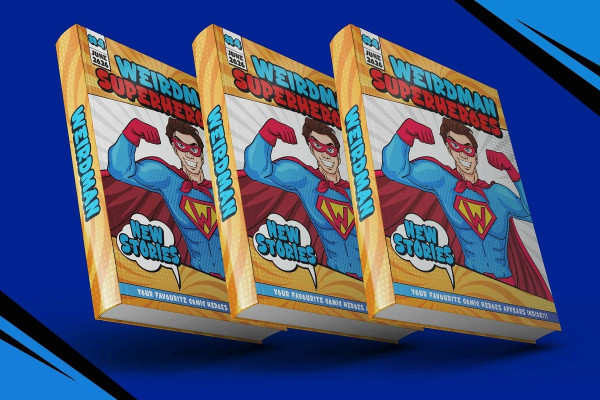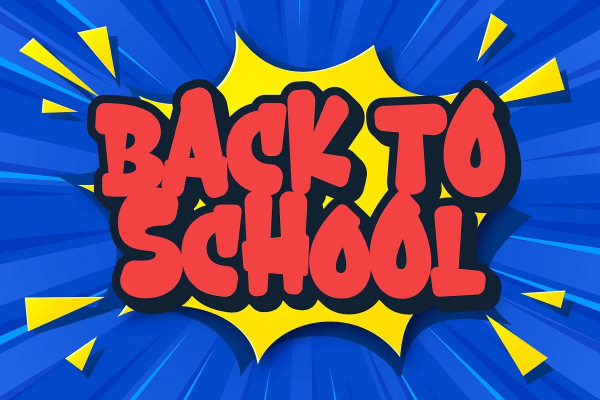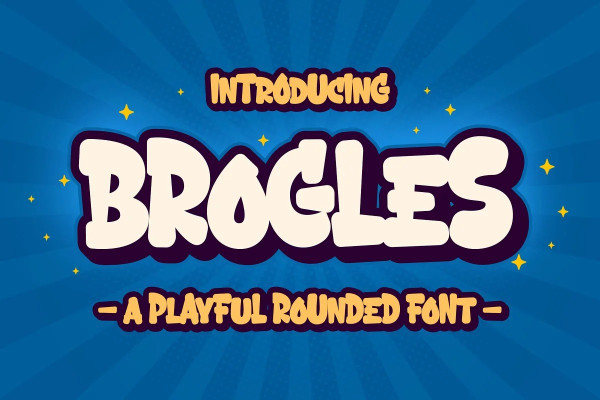
Brogles Font
Brogles Font a Playful Rounded Font Brogles a Playful Rounded Font, Inspiring from Playful typography. This font is perfect for a design that makes it more attractive and playful. made with a very good level of aesthetics making this font suitable for book cover, poster, packging, merchandise, logotype and much more.